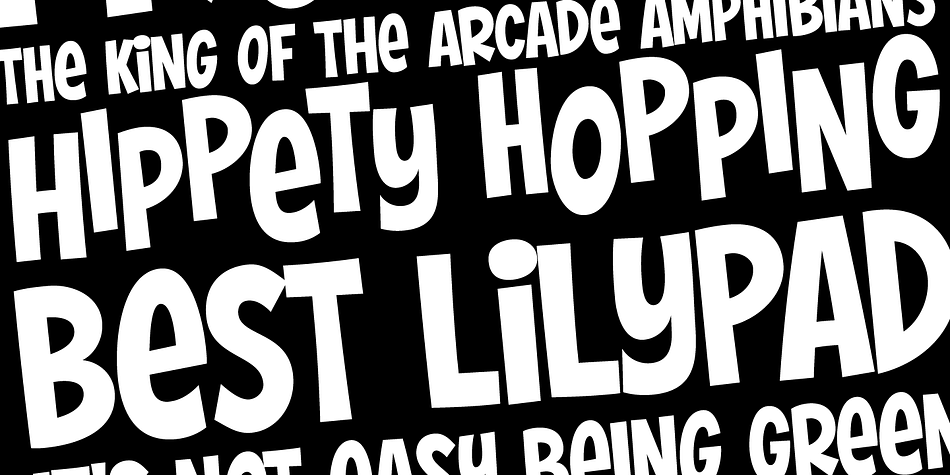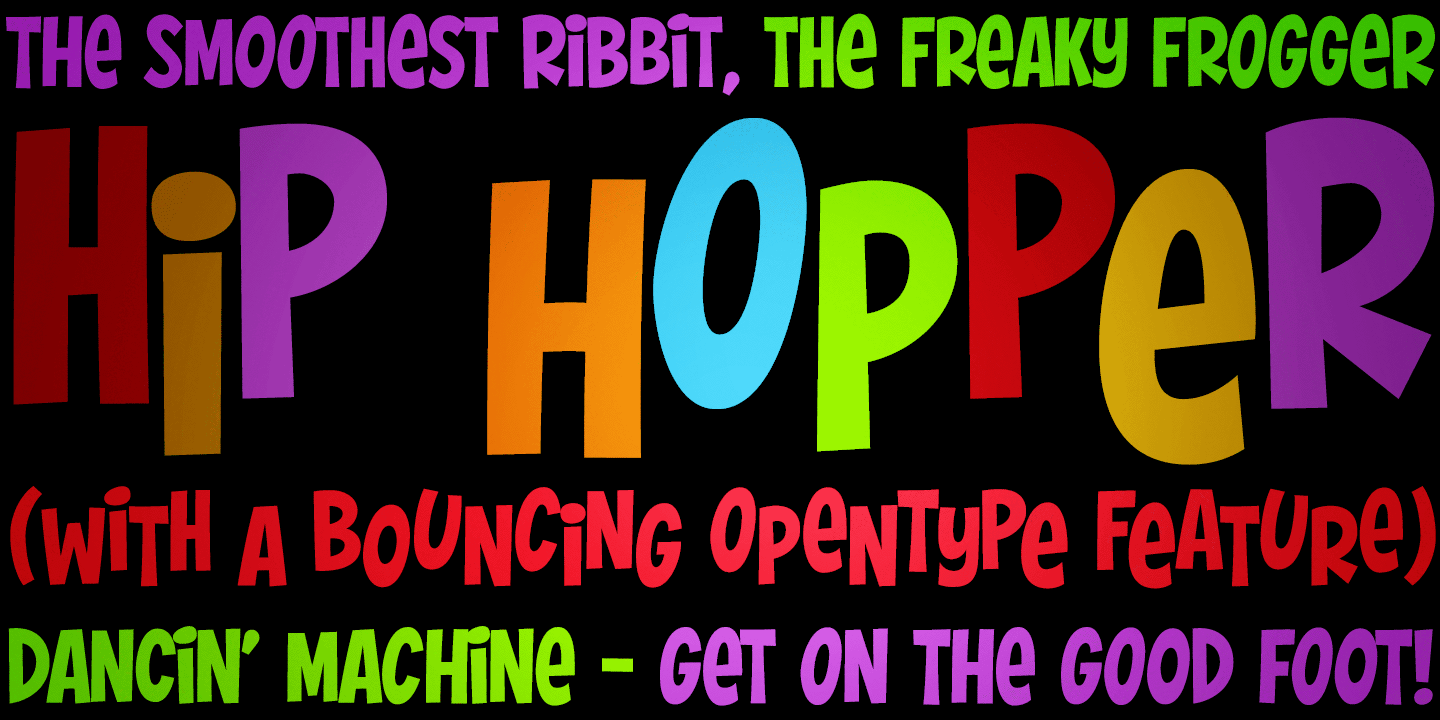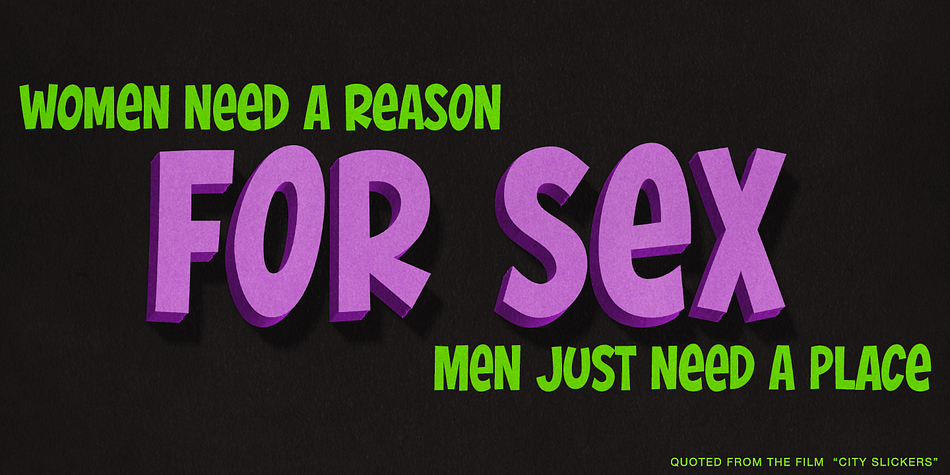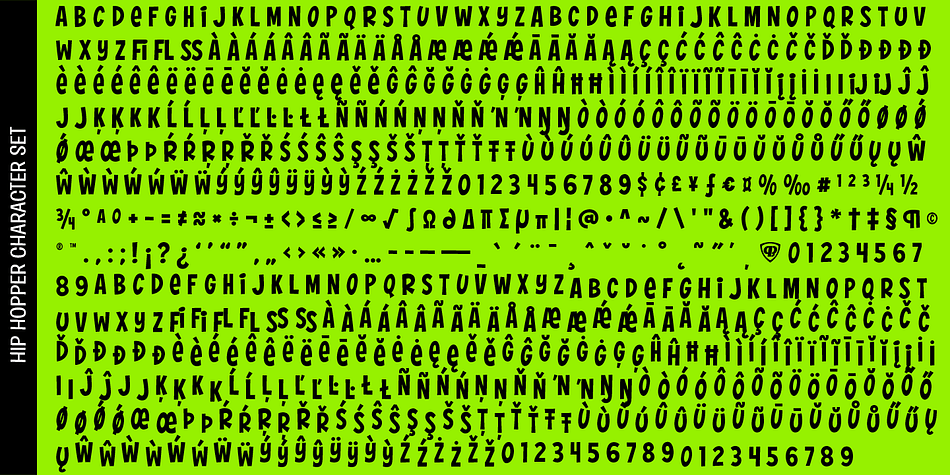
Designed by Phil Bracco, Hip Hopper PB is a comic and hand display font published by Pink Broccoli.
An offbeat typeface inspired by the lettering on an art poster by Patrick Owsley for the cartoon character Hoppity Hooper. This typeface goes beyond the basic opentype features you’ve seen (i.e. extended language character sets, stylistic alternate character variations, etc) and offers not only a ligature feature that automatically alternates between the Capitals & Lowercase (Alt Capitals) sets, but also a unique Contextual Alternates feature that enables an automatic alternating BOUNCING effect.
All this piled into a single typeface with loads of personality, just waiting to be played with!